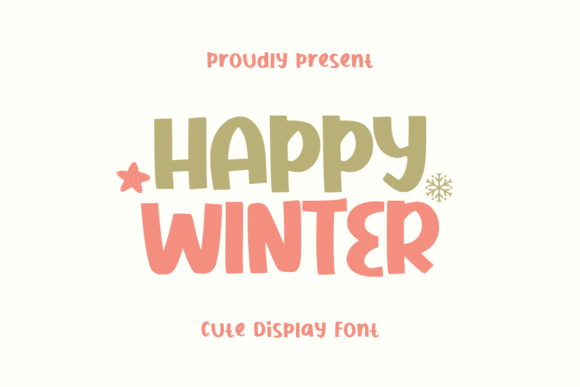
Looking to add a touch of whimsy and playfulness to your designs? Look no further than the captivating Happy Winter Font! Created by the talented Nadiratype, this display font is perfect for those seeking the best fonts for quotes on Canva.
Happy Winter Font is more than just a font – it's a gateway to a world of imagination and creativity. With its charming and childlike appearance, this font evokes a sense of innocence and joy, making it ideal for a wide range of projects.
Crafters, rejoice! Whether you're working on DIY projects, scrapbooking, or creating personalized gifts, Happy Winter Font will effortlessly elevate your creations. Its easy-to-read characters ensure that every word will be a delightful visual treat for your audience.
Digital designers, get ready to make a lasting impression! With Happy Winter Font, your online presence will be taken to new heights. From eye-catching social media posts to stunning website headers, this font will bring a playful and inviting touch to your digital designs.
Presenters, prepare to captivate your audience! Happy Winter Font adds a touch of whimsy to your slides, making your presentations more engaging and memorable. Stand out from the crowd and leave a lasting impression with this font's impeccable friendliness and charm.
And let's not forget about greeting cards! Whether it's birthdays, holidays, or just a simple note to brighten someone's day, Happy Winter Font is the perfect choice. Let your heartfelt messages shine with this font's endearing style, making each word feel like a warm hug.
But what truly sets Happy Winter Font apart is its versatility. It seamlessly adapts to any occasion, ensuring that it will become your go-to font for all your creative endeavors. Its ability to evoke emotions and convey a sense of warmth is unparalleled, leaving a lasting impact on anyone who encounters it.